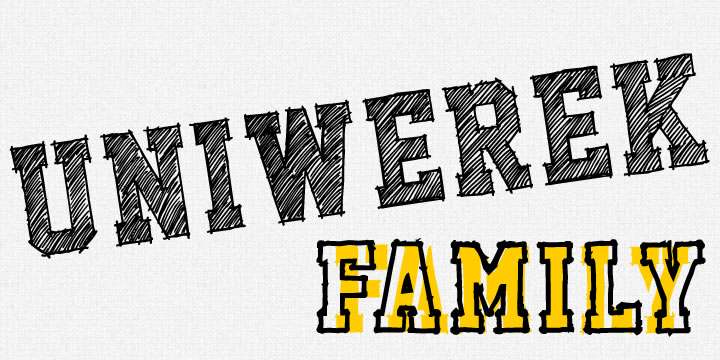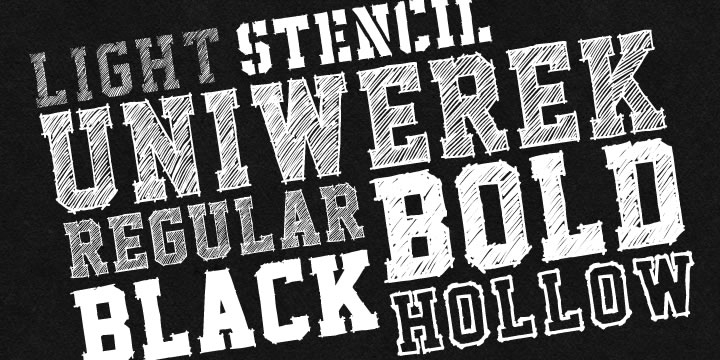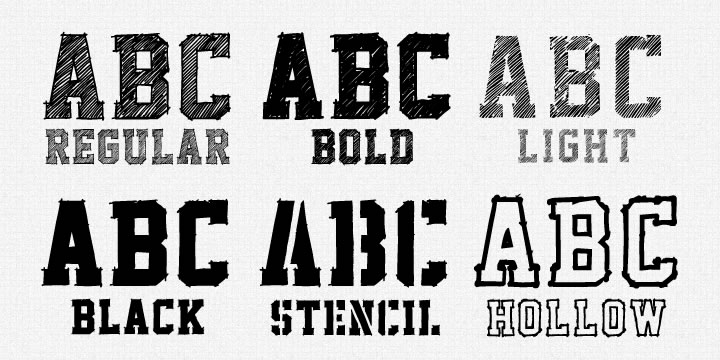
Uniwerek
Uniwerek is a display and stencil font family. This typeface has six styles and was published by GRIN3 (Nowak).
Uniwerek is a hand drawn font, inspired by college and university sportswear.
The Uniwerek font family consists of six fonts: Uniwerek, UniwerekBold, UniwerekBlack, UniwerekLight, UniwerekHollow, UniwerekStencil.
UniwerekBlack and UniwerekLight can be used together by layering UniwerekLight above a differently coloured UniwerekBlack.
Language support includes Western, Central and Eastern European character sets, as well as Baltic and Turkish languages.